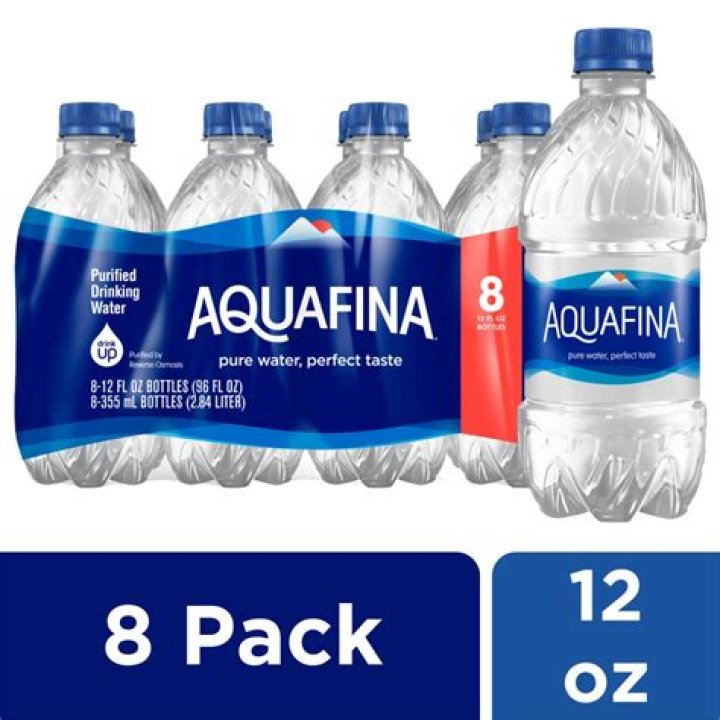
What font does Aquafina use?
Andrew Davis What font does Aquafina use?
Perhaps most notable of all is the new word mark, which has been changed into a simple and approachable sans serif font that completes the crisp new look. Overall, the clean, dynamic, new visuals bring a deep sense of refreshment and elevation of the brand.
When did Aquafina change their logo?
2004 – 2016. The redesign of 2004 switched the intense blue background of the Aquafina logo to white, making the whole composition more airy and fresh.
How did the new Aquafina logo come about?
Earlier this year, Aquafina introduced a new identity — the first change since it launched — designed in-house by PepsiCo Design & Innovation. Perhaps most notable of all is the new word mark, which has been changed into a simple and approachable sans serif font that completes the crisp new look.
The characters flow into each other, making a very saucy script with appetizing color. The narrow lowercase allows for efficient use of space, while the long ascenders and descenders help maintain the legibility. A unique find among scripts, Aguafina is useful for product packaging, glossy magazine work, and book covers.
What kind of font does the Acura logo use?
The Acura logo consists of a stylized capital letter A in an oval and the word “ACURA” beneath it. The stylized letter A can also be interpreted as a stylized H, meaning Honda. A font called NSX or NSX 2.6 designed by Bill Pierce is very similar to Acura logo lettering. With lowercase a in NSX 2.6, you will be able to produce…